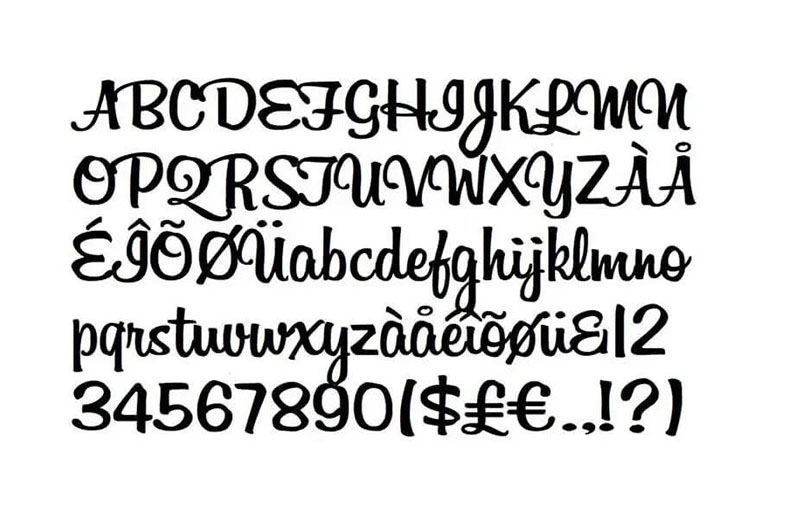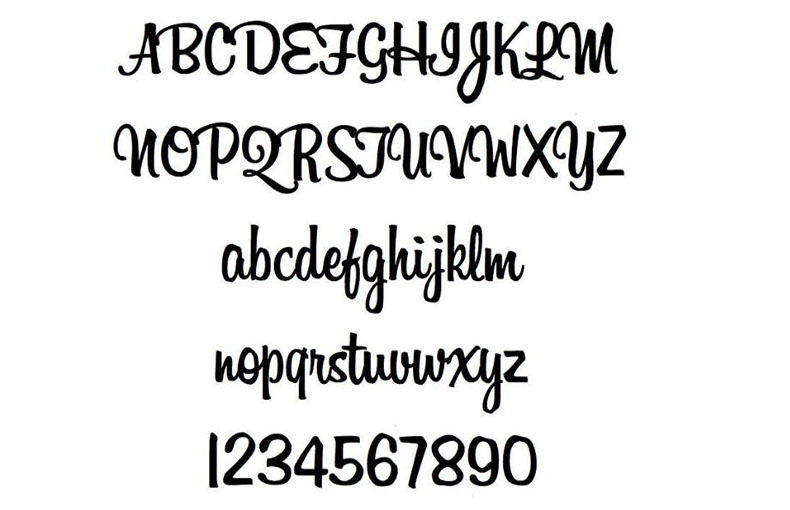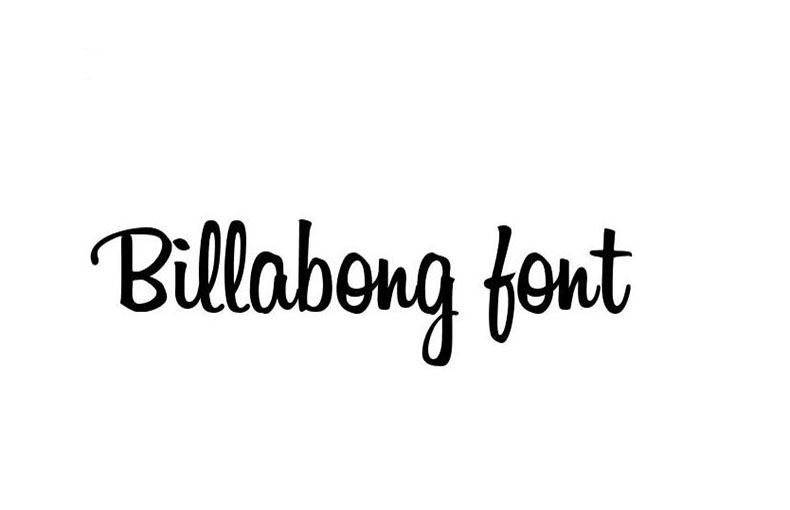
Billabong Font is a graceful brush script typeface that inspired by the hand-lettered typography often found on surfboards. It is ideal for making product labels, posters, headers, and logos.
It was first created in 2006 by renowned graphic artist Russell Bean and published by Type Associates.
It has rich brush strokes, a casual, relaxed attitude, and a lively, bold font. In branding and design initiatives for surfing, beach living, or other outdoor pursuits, the Billabong typeface is frequently utilized.
This typeface comes in 4 weights including regular, italic, bold, and bold italic. Moreover, this font includes 284 glyphs and 91 binary stored kerning pairs. It also supports 68 different languages.
Let its brushwork charm captivate your audience and leave a lasting impression.
What is the Billabong font?
Billabong is a popular dеcorativе script font oftеn usеd for a stylish and casual look in dеsign projects.